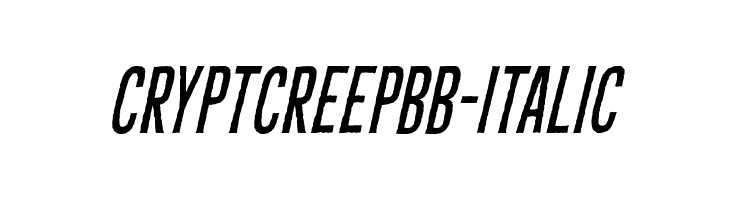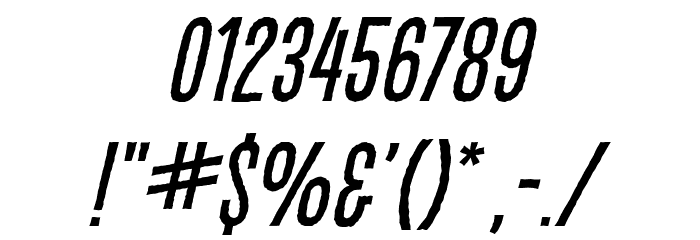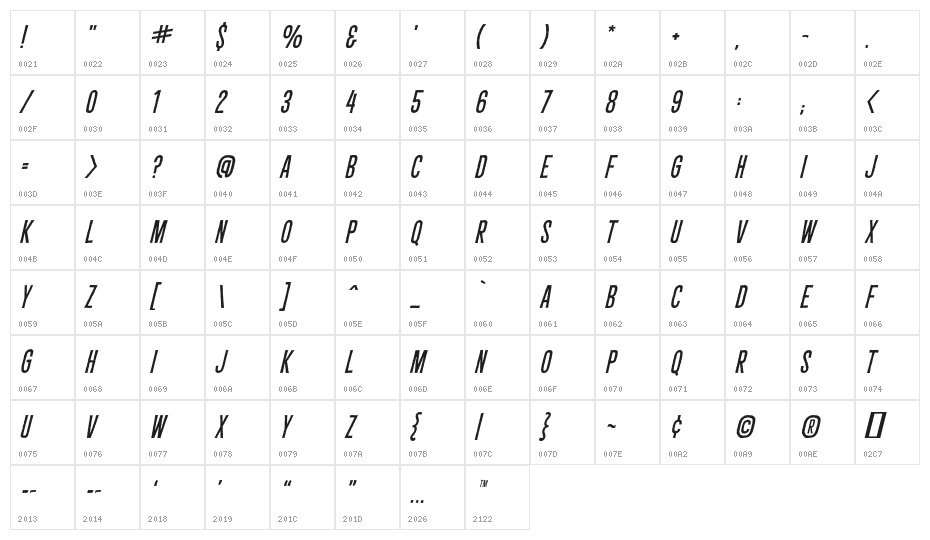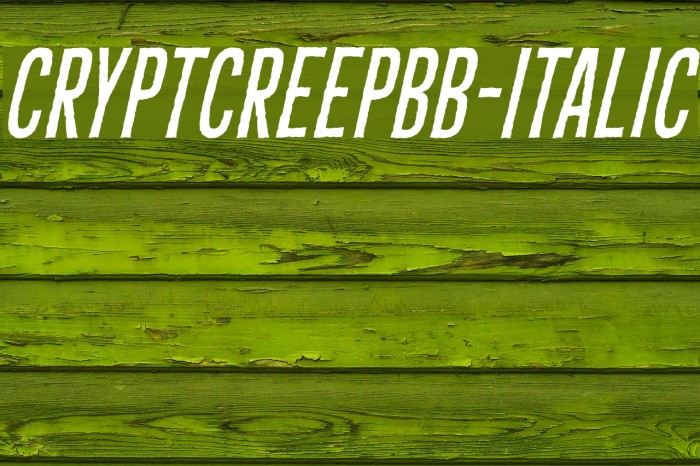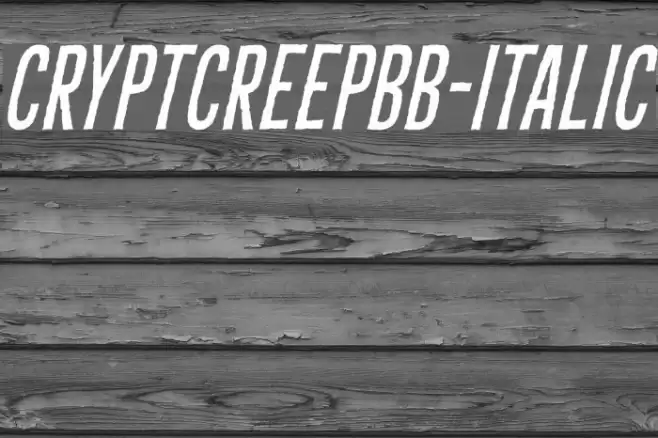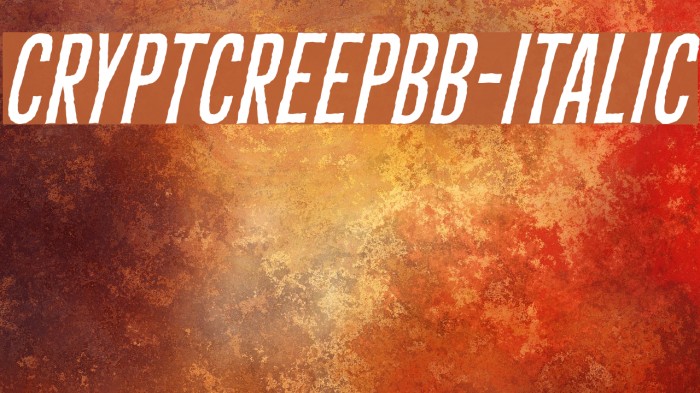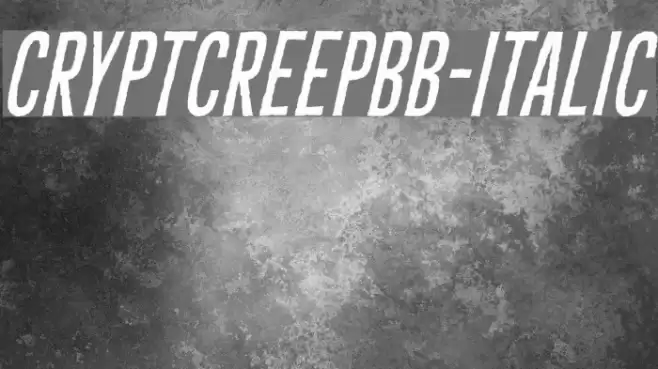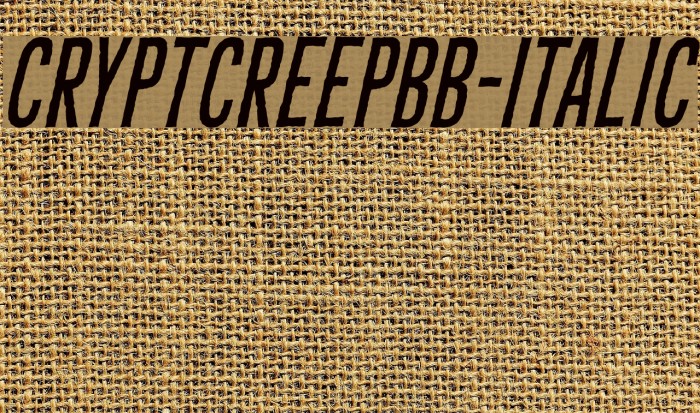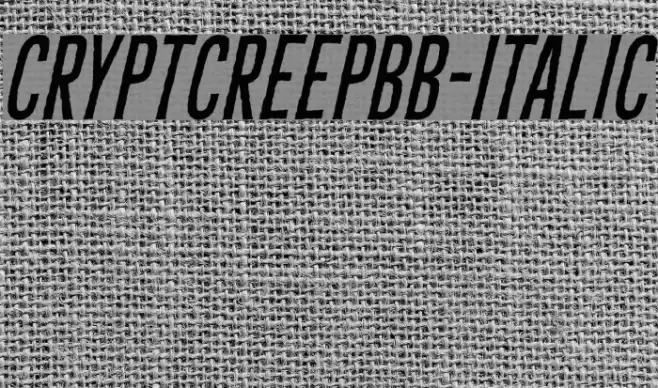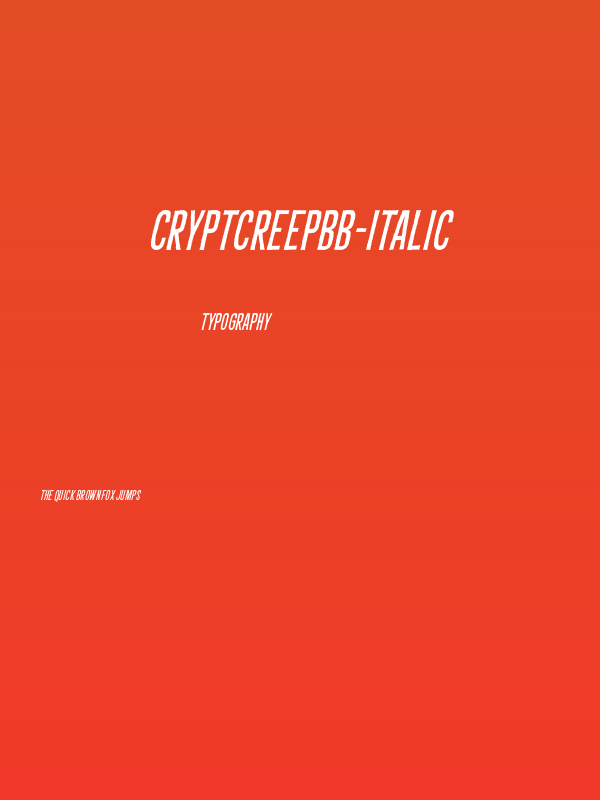
CryptCreepBB-Italic Font
CryptCreepBB-Italic Description
This font features a bold and dynamic style with a distinct italic slant, giving it a sense of motion and urgency. The characters are tall and narrow, contributing to a condensed appearance that maximizes vertical space. The strokes are consistent in thickness, providing a uniform look across all characters. The overall design is modern and sleek, making it suitable for eye-catching headlines and impactful text. The font includes a full set of uppercase and lowercase letters, numbers, and a variety of special characters, ensuring versatility in different design contexts.